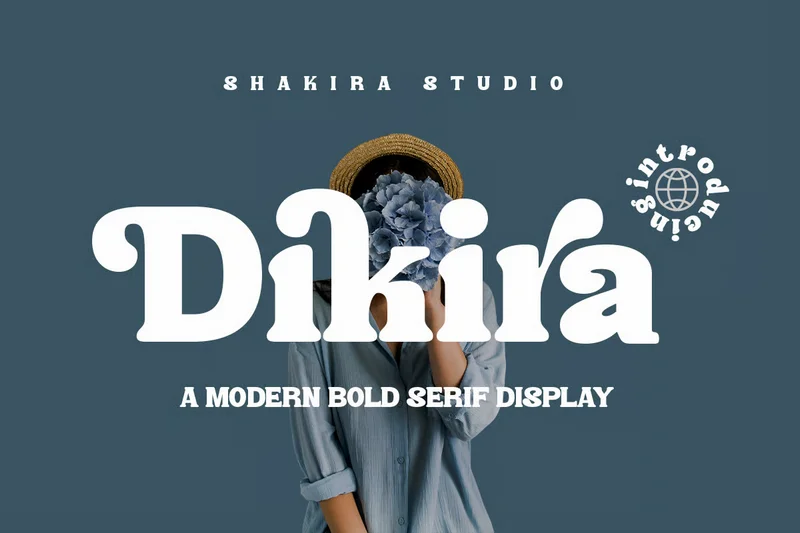
Dikira – Bold Modern Retro Serif Logo Display
Dikira is a modern bold serif display font that brings retro vibes into the world of contemporary design. With thick curves and quirky terminals, it’s perfect for logos, posters, packaging, and editorial headlines. Dikira delivers both strength and personality — balancing nostalgic aesthetics with a modern creative twist.
Regular & Italic
Alternates & Ligatures